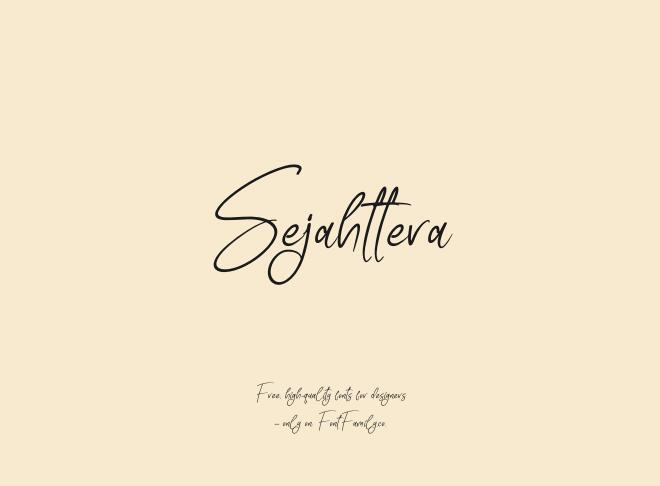
Sejahttera Font
Sejahttera Font, designed by Creative Typing Fonts, is a stunning handwritten script typeface. Released in 2020, this elegant and decorative font brings a unique touch of creativity to any design project. With its fluid and organic letterforms, it is reminiscent of traditional calligraphy yet maintains a modern appeal. Sejahttera Font is perfect for various uses such as logos, wedding invitations, headings, t-shirts, letterhead, signage, labels, news, posters, badges, and more. Its versatility makes it a great choice for designers seeking to add an artistic and personalized touch to their work. The font is free for personal use and stands out amongst other script fonts due to its unique and distinctive character styles.